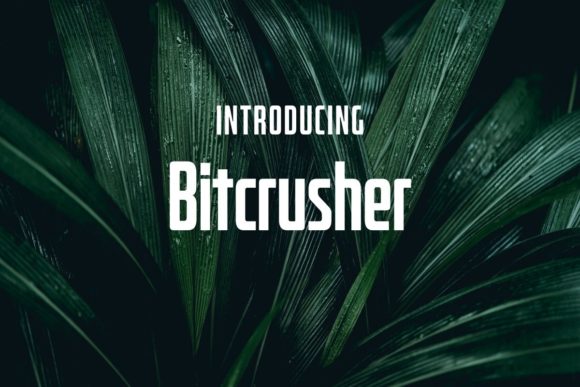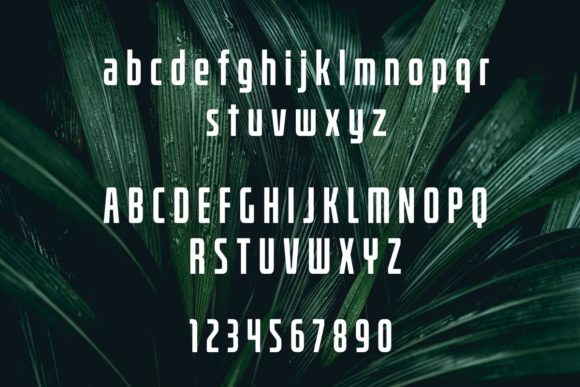
Bitcrusher Condensed Bold
About Bitcrusher Condensed Bold Font
Bitcrusher Condensed Bold is an ultramodern, ultra-compact sans serif font influenced by contemporary designed technology. It was designed for maximal compression allowing you to fit more words into one line.